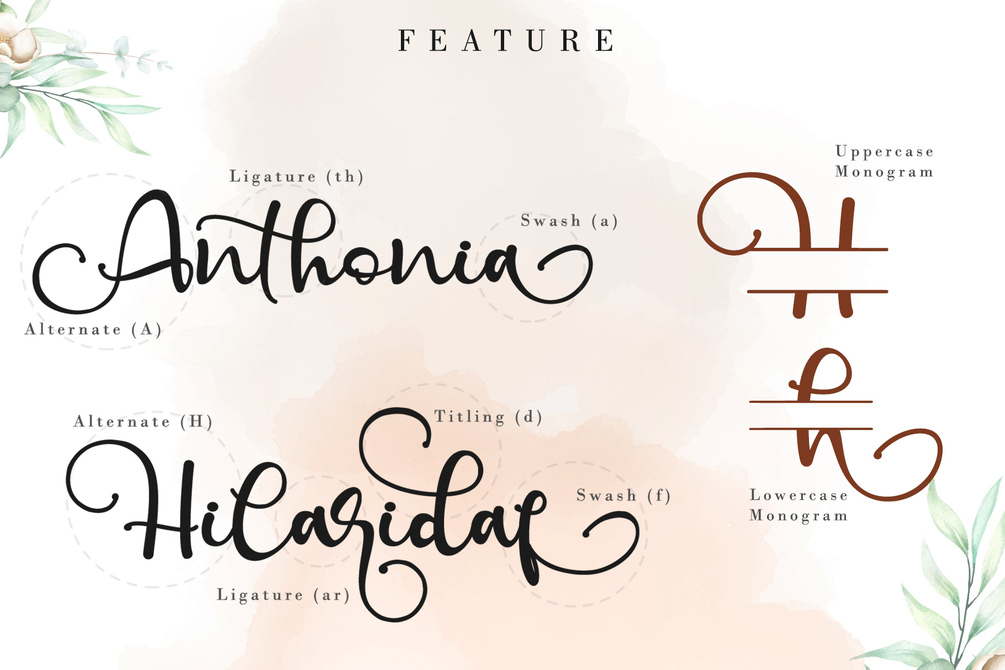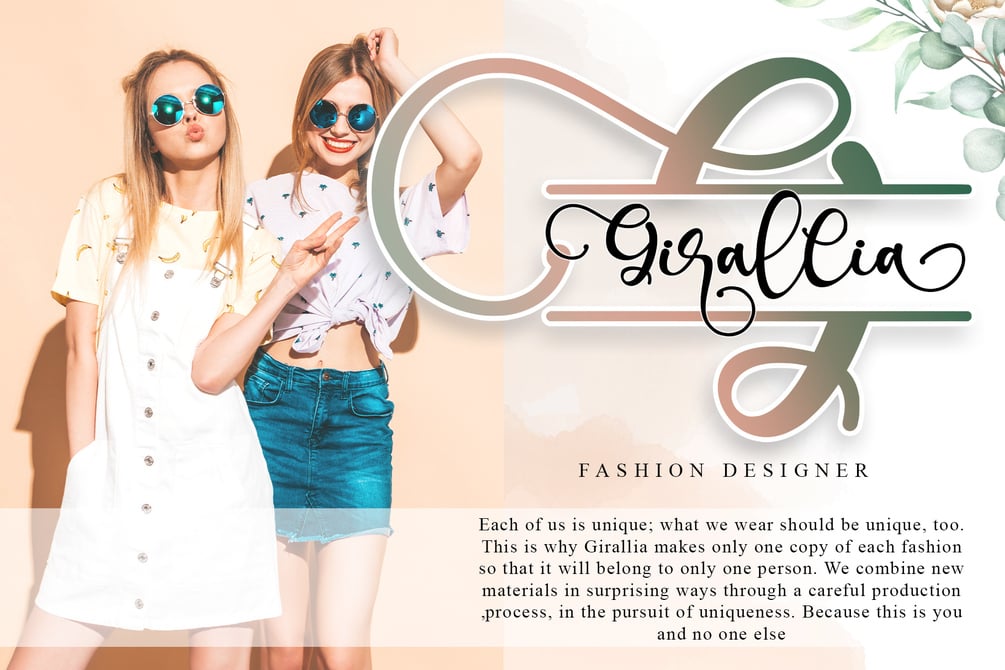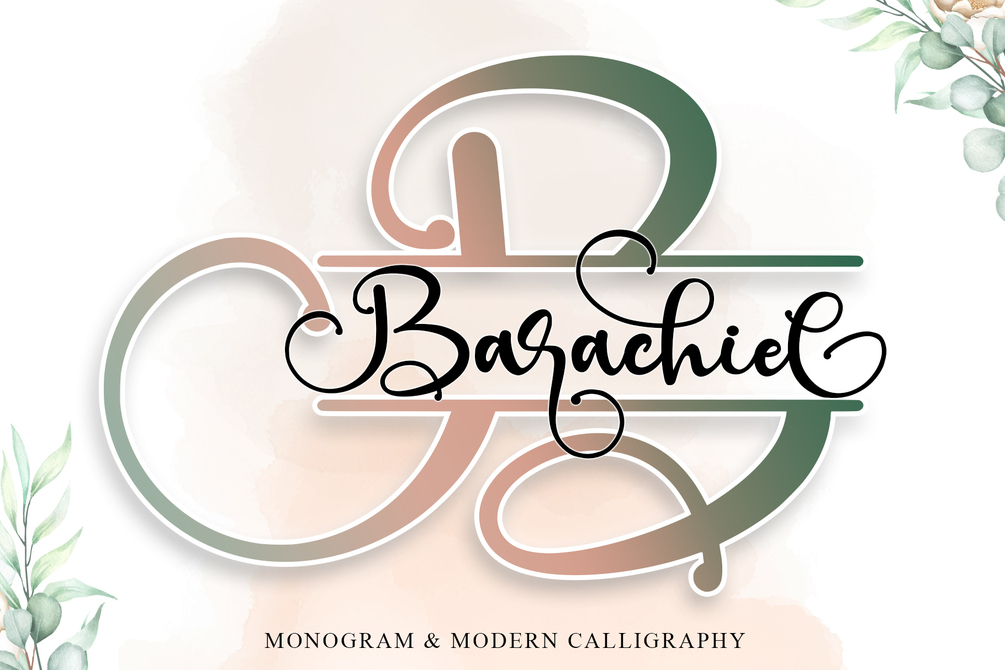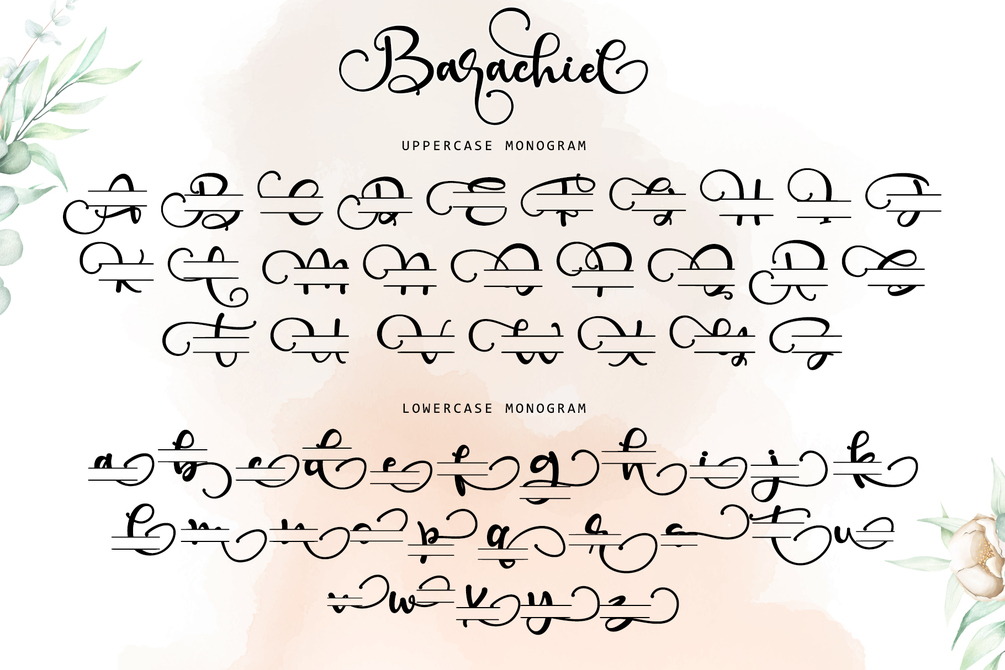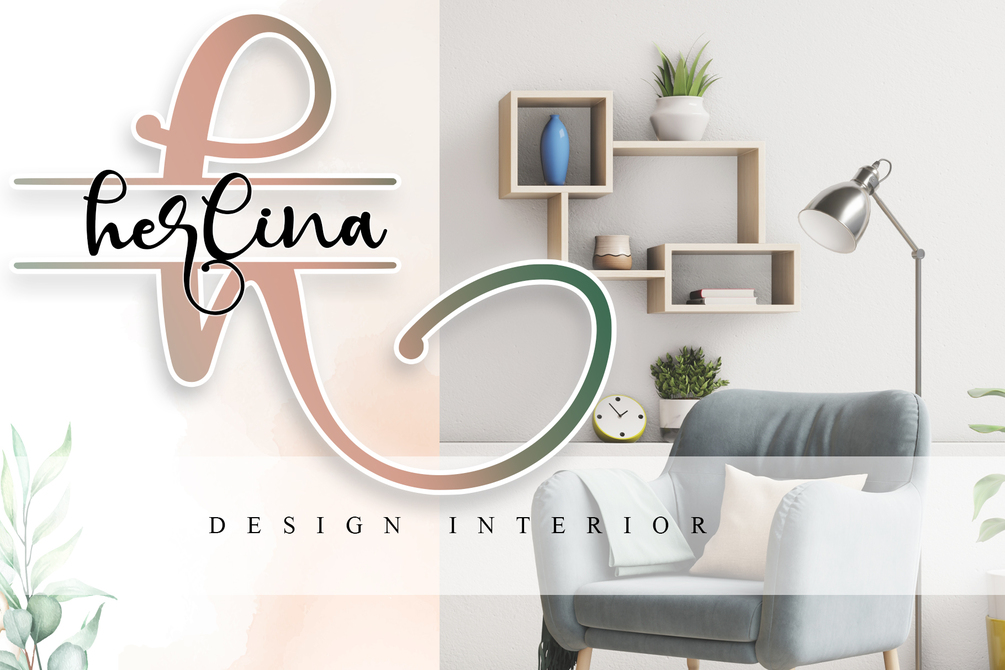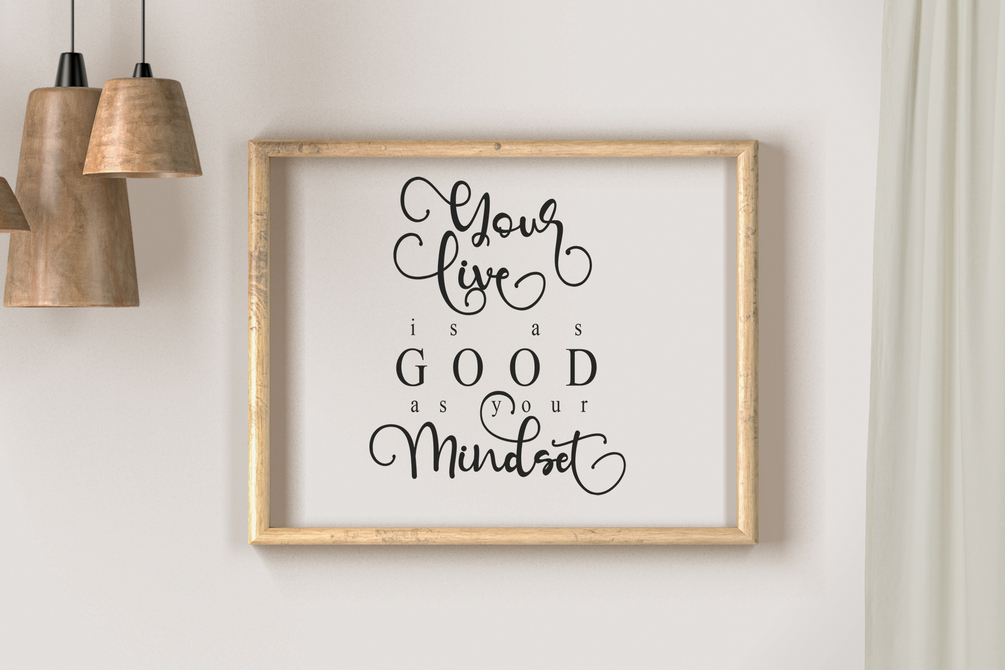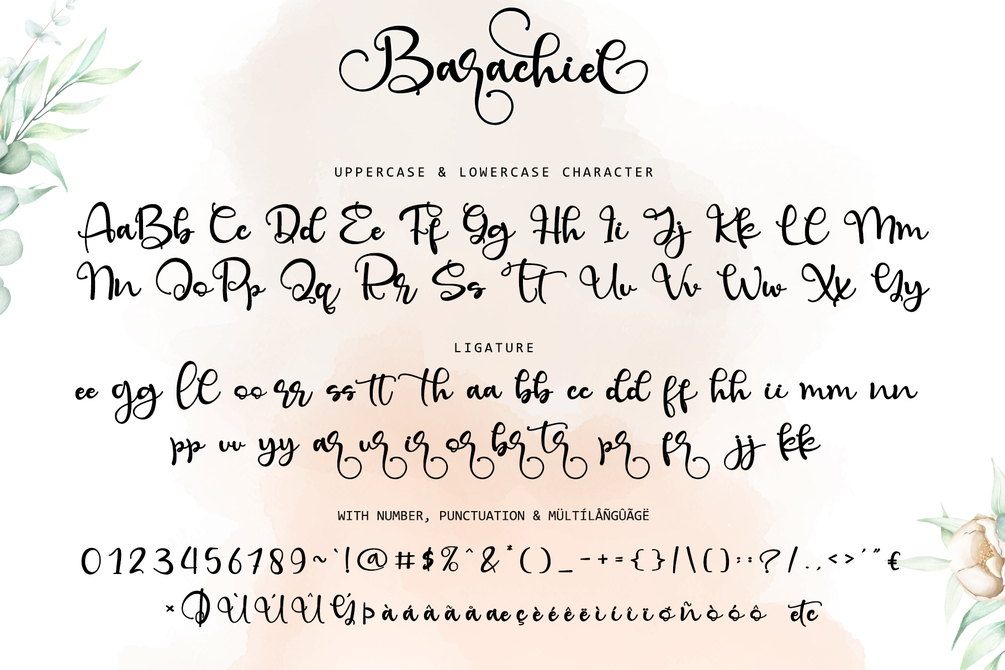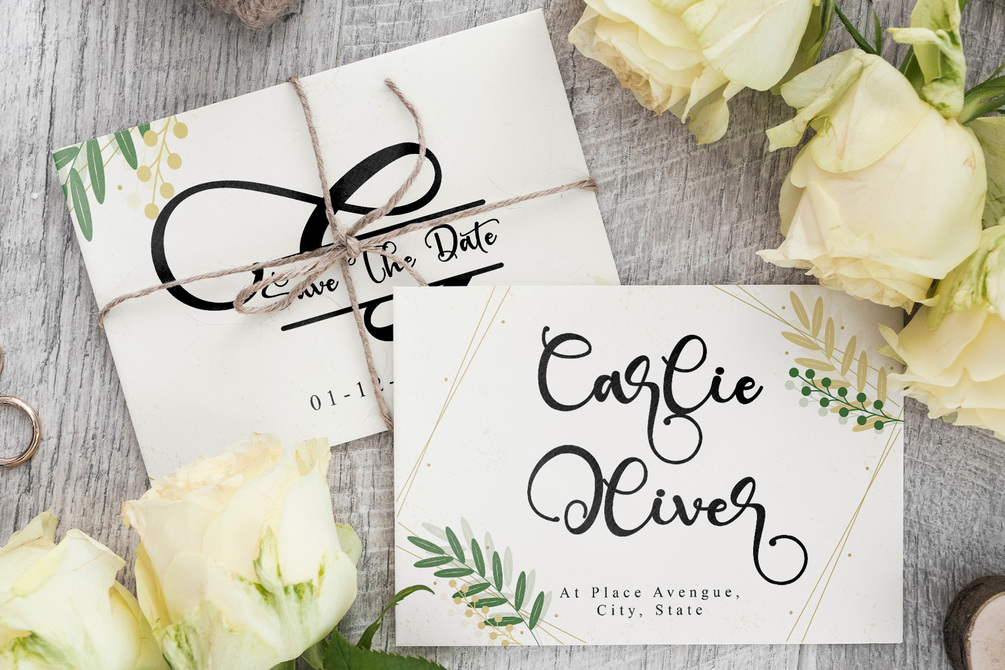
Barachiel
Barachiel is a beautiful script and Monogram font designed with an incredibly modern feel. Whether you’re looking for fonts for Instagram or calligraphy scripts for DIY projects, Still Love will turn any creative idea into a true piece of art! This font is PUA encoded which means you can access all of the glyphs and swashes with ease! It features a varying baseline, gorgeous glyphs, and stunning alternates.